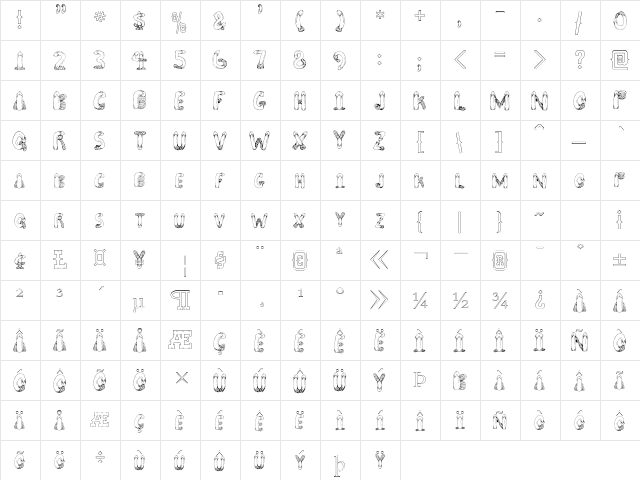
PENIS FONT 2 Regular
Design Context for PENIS FONT 2 Typeface
PENIS FONT 2 is a composed and adaptable typeface that performs quietly and consistently across a wide range of design contexts.